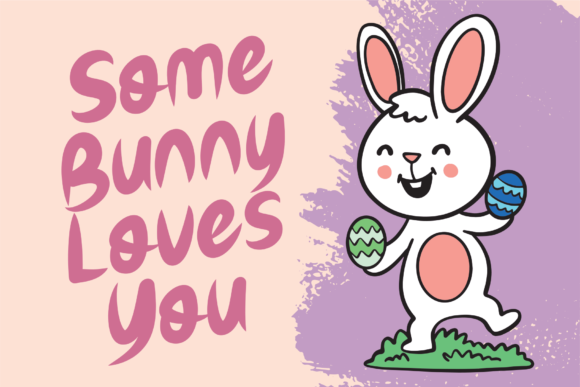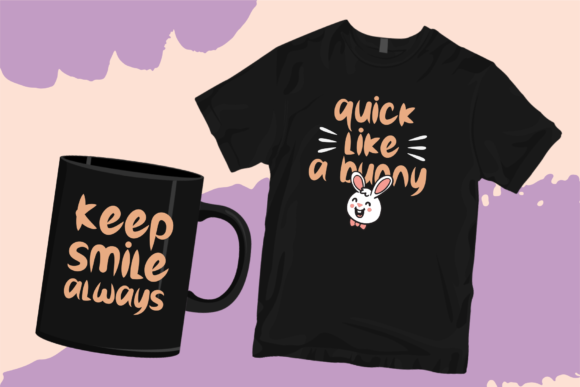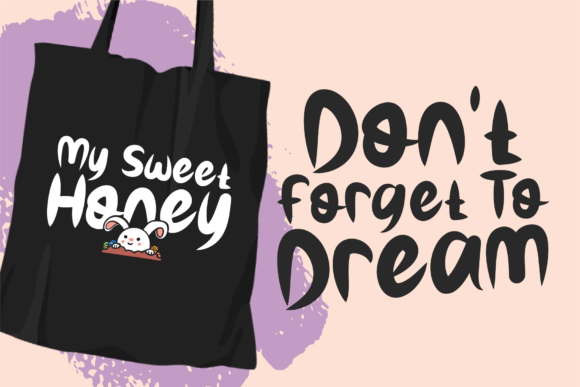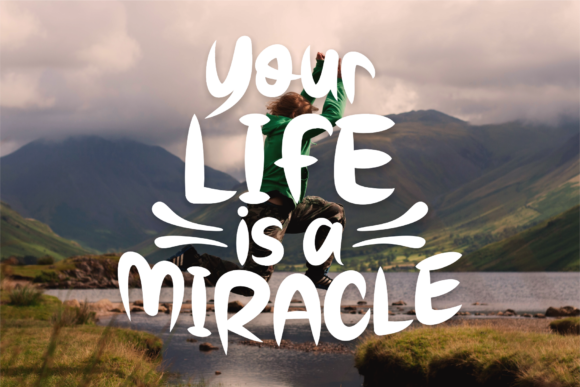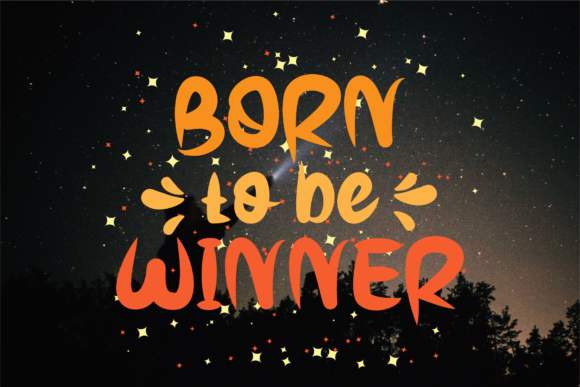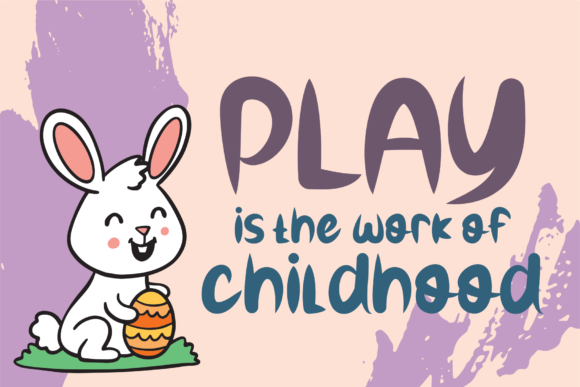
Introduction to Quiet Rabbit Font
Do you remember the feeling of excitement when you were a kid, rummaging through your craft box, looking for the perfect stickers and colorful papers to create a masterpiece? For many of us, those moments sparked a lifelong passion for creativity and self-expression.
As a designer, you’re no stranger to the thrill of bringing a project to life. And sometimes, all it takes is the right font to elevate your design from good to great. That’s where the Quiet Rabbit Font comes in – a high-quality, display font that’s as versatile as it is charming.
With its transparent background and free download option, the Quiet Rabbit Font is the perfect design resource for any creative project, from crafting and digital designs to presentations and greeting card making. Whether you’re a seasoned pro or just starting out, this sweet and playful font is sure to add a touch of whimsy to your work.
Key Features of Quiet Rabbit Font
- Unique, hand-drawn design suitable for creative projects, such as illustrations, graphics, and logos.
- Designed with a minimalist aesthetic, making it an excellent choice for simple, yet effective designs.
Honest Review: Quiet Rabbit Font
I recently had the chance to work with the Quiet Rabbit Font, and I must say it’s a great addition to any design project. As a designer, I appreciate high-quality fonts that can elevate my creative work.
One of the things that works well with this font is its versatility. It’s perfect for a wide range of projects, from children’s books to marketing materials. The design is playful and cute, making it ideal for designs that require a bit of whimsy.
- ✨ High-quality design: The Quiet Rabbit Font is well-designed and professional-looking.
That being said, there are a few limitations to keep in mind. The font may not be suitable for more serious or formal projects, as it has a playful tone.
- ⚠️ Limited use cases: The font may not be the best choice for projects that require a more formal tone.
Overall, I’m impressed with the Quiet Rabbit Font. It’s a great design resource for designers who want to add a touch of playfulness to their projects.
Tips for Getting the Most Out of Quiet Rabbit Font
To maximize the effectiveness of the Quiet Rabbit Font, experiment with different font sizes, colors, and styles. Combine the font with other design elements, such as images and graphics, to create visually appealing designs. Additionally, consider using the font on a transparent background to achieve a more sophisticated look.
Common Use Cases for Quiet Rabbit Font
The Quiet Rabbit Font is suitable for a variety of creative projects, including branding, marketing materials, and digital art. Its unique design makes it an excellent choice for adding a touch of personality to your designs. Whether you’re a professional designer or a hobbyist, the Quiet Rabbit Font is a valuable design resource to have in your toolkit.